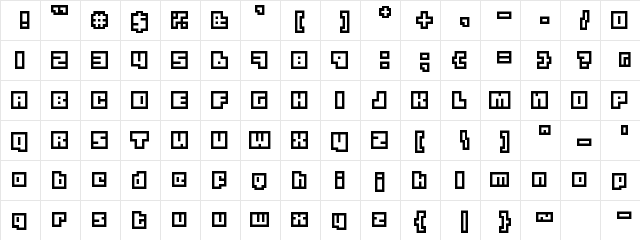
Gubblebum Blocky
| Style | Blocky |
| Foundry | Tjarda Koster |
Design Context for Gubblebum Typeface
Gubblebum is a composed and adaptable typeface that performs quietly and consistently across a wide range of design contexts.
Pro Tip: Pair Gubblebum with a font of contrasting weight or personality to build a more expressive typographic hierarchy.